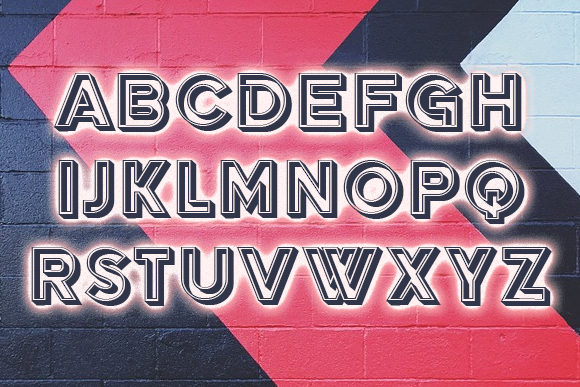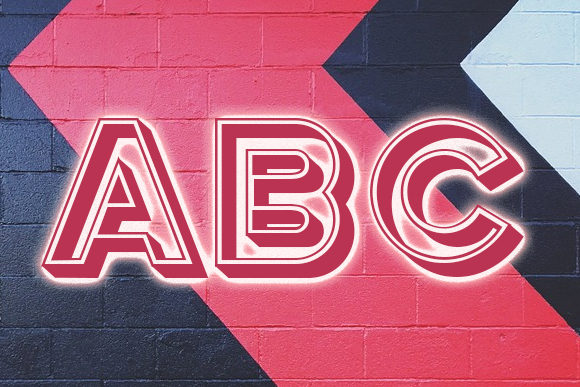
The Ultimate Retro Revival: Baise Font
Have you ever stared at a blank design canvas, feeling stuck and uninspired? You know the feeling – like your creativity is just waiting to be unleashed. That’s exactly where I was when I stumbled upon the Baise Font. This retro-style display font is an absolute game-changer, breathing new life into any design project.
Imagine adding a touch of nostalgia and charm to your next t-shirt design, banner, or print project. Baise Font is the perfect solution, with its chunky letters and vintage vibe that’s sure to captivate your audience. Whether you’re a seasoned designer or just starting out, this font is an absolute must-have in your toolkit.
Baise Font Key Features
- Font Family: Baise Font is a sans-serif font family designed for digital use.
- Unique Characteristics: Baise Font features a clean and modern design, with subtle rounded edges and a wide range of weights and styles.
- Number of Fonts: The font family includes multiple weights, from light to bold, as well as italic and condensed styles.
I’ve had the chance to work with Baise Font and here’s my honest review.
- The font is highly customizable, allowing for a wide range of adjustments to suit your design needs.
- The font’s high contrast and clear readability make it perfect for digital applications.
- Baise Font is a great choice for body text, as it’s easy to read and comprehend.
- The font may not be as aesthetically pleasing for headings or titles, where a more elegant or decorative font is preferred.
- Some users may find the font’s simplicity a bit too bland or generic.
- The font may not be suitable for print materials, as it’s optimized for digital use.
Overall, Baise Font is a solid choice for digital applications where readability is a top priority. While it may not be the most visually stunning font, it gets the job done effectively. I’d recommend it for body text and other digital contexts, but may not be the best fit for more creative or print-based projects.
For best results, use Baise Font in combination with high-quality images and a clean design aesthetic.
- Experiment with different font sizes and colors to achieve the desired effect.
- Use Baise Font in headings and titles to create a cohesive look.
- Pair Baise Font with other creative fonts to add visual interest.
Baise Font is ideal for: